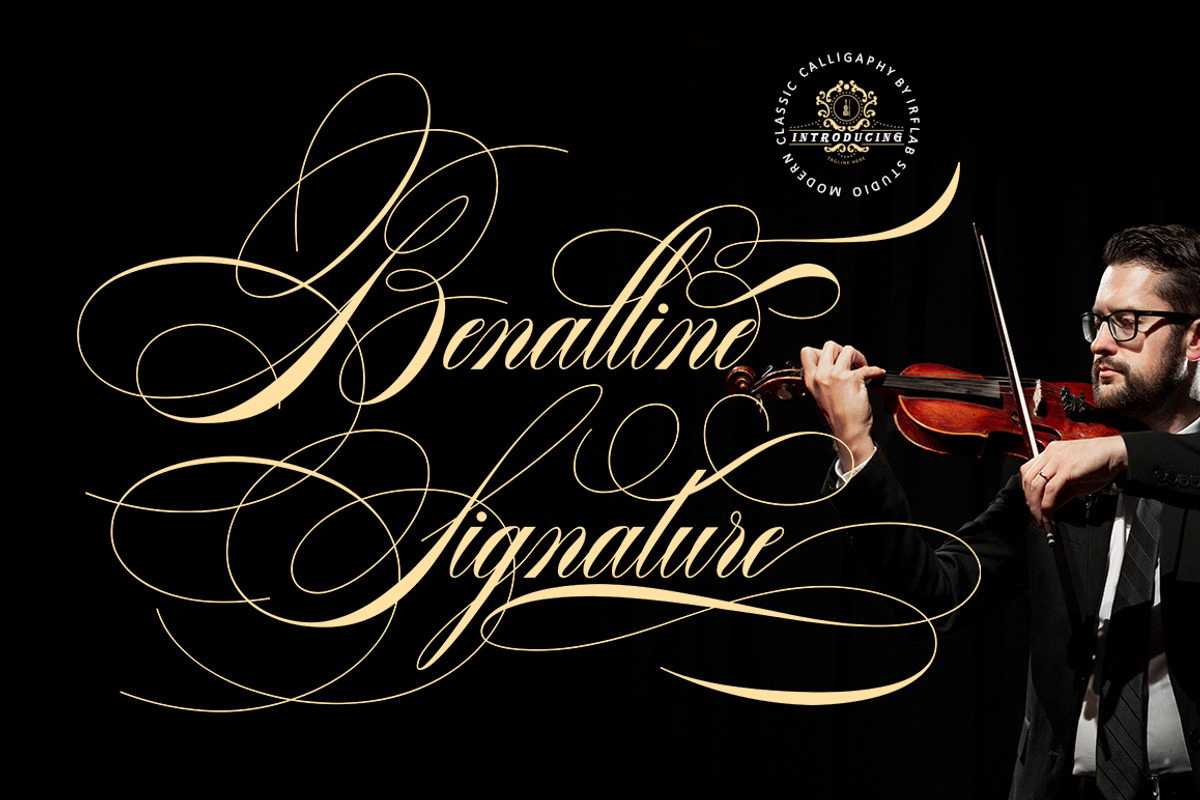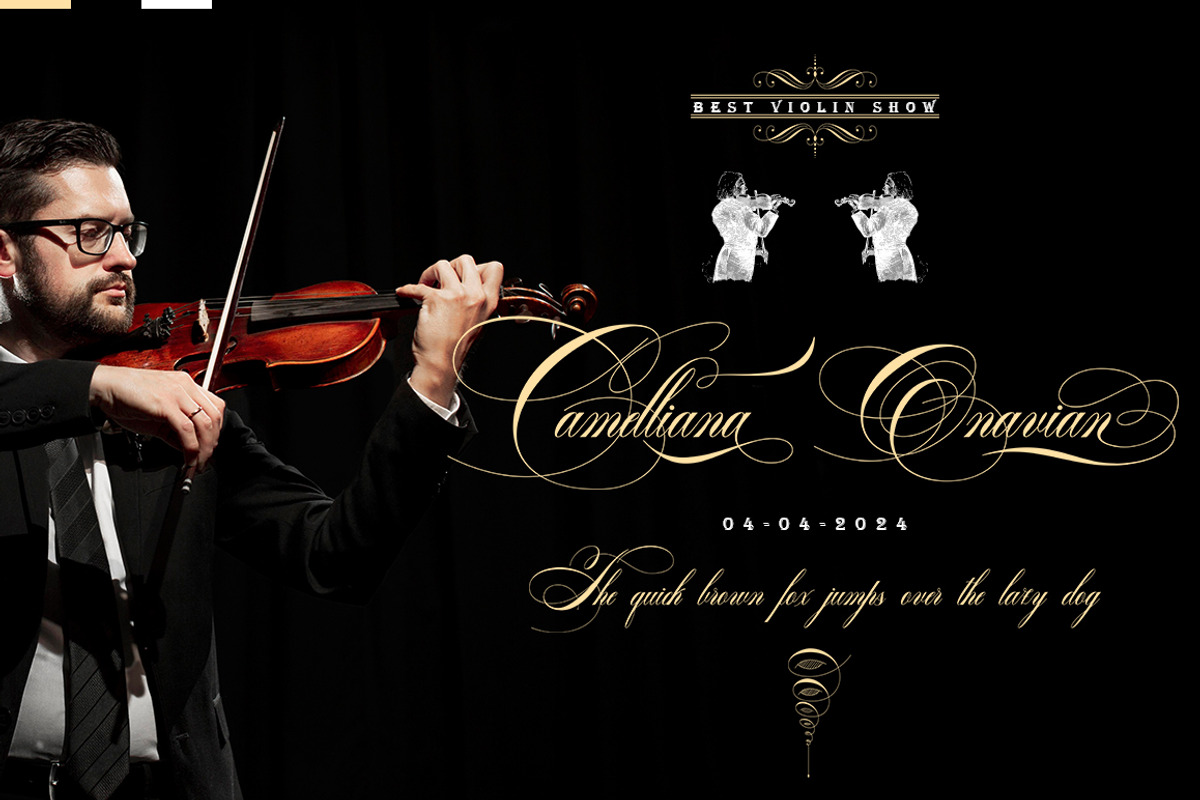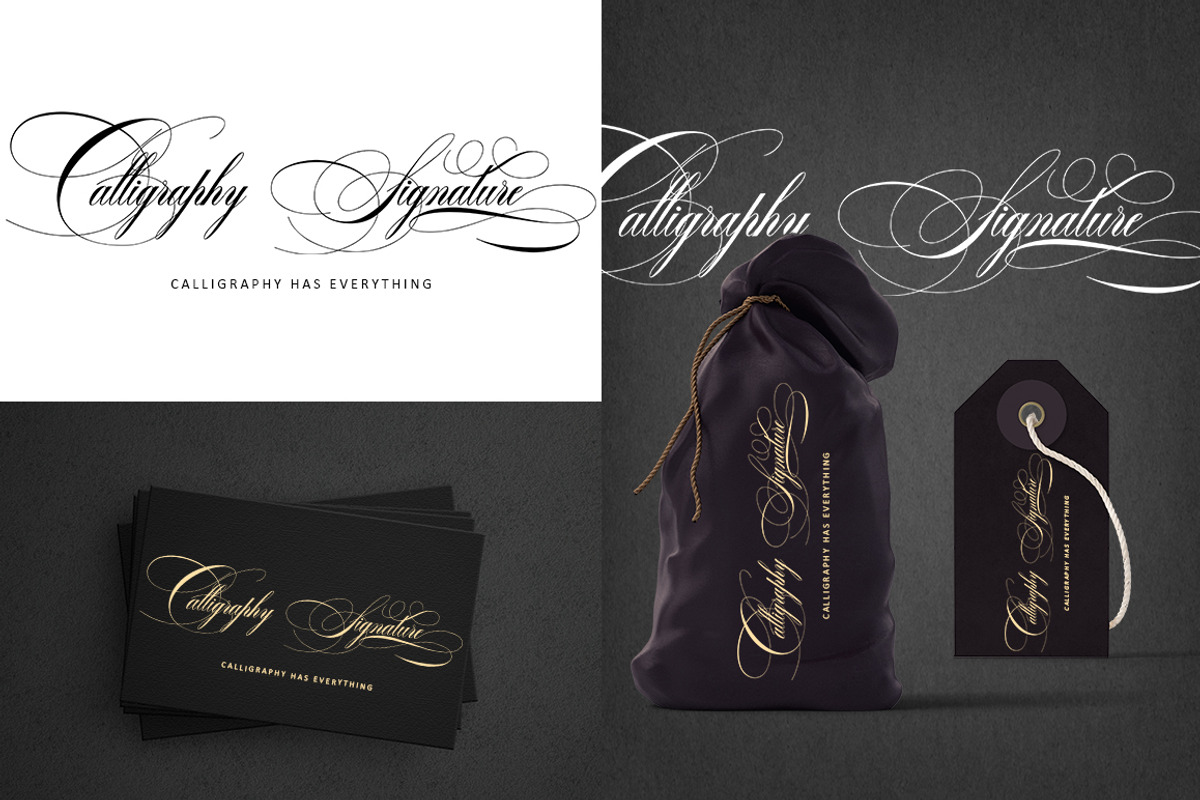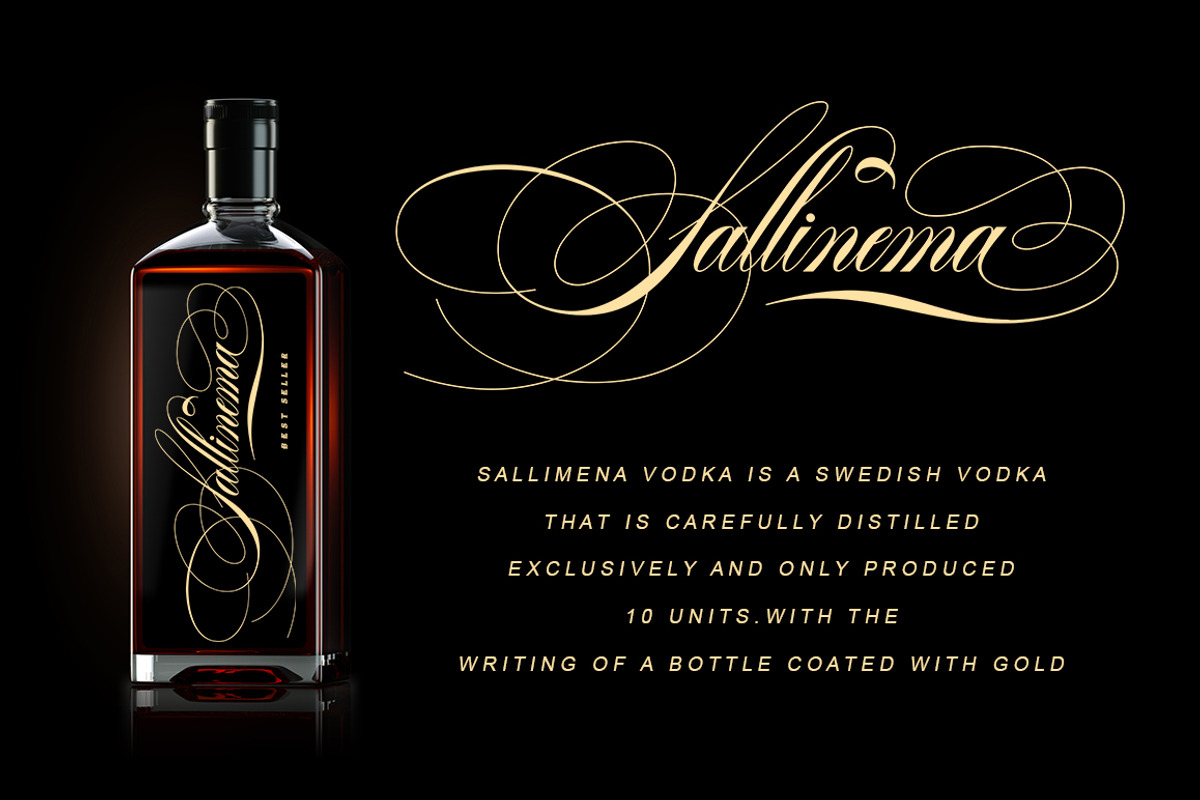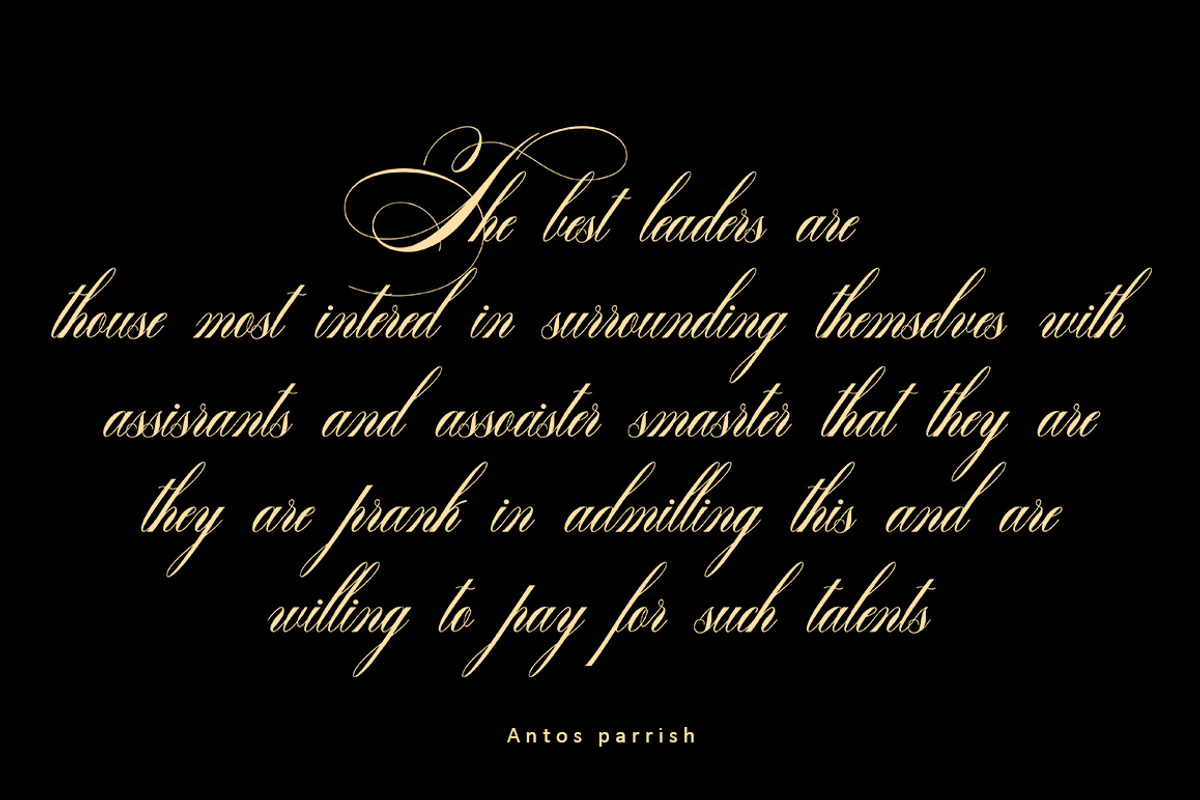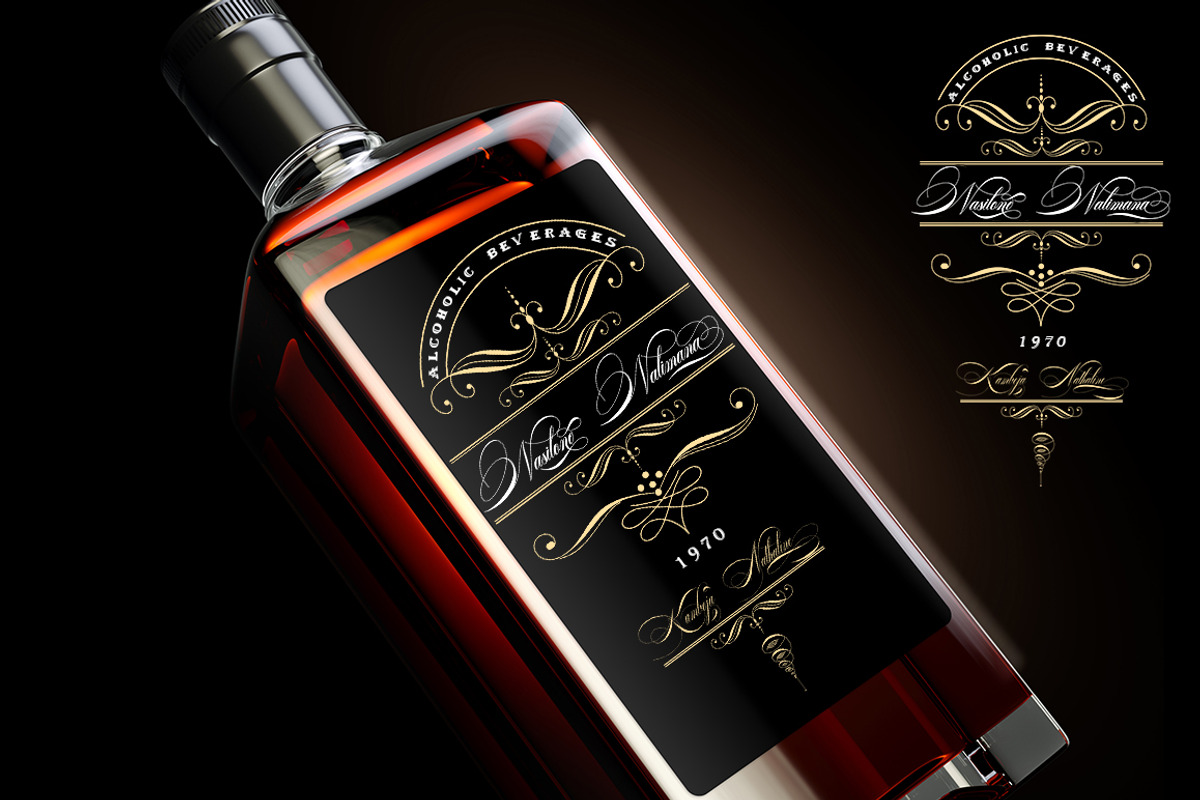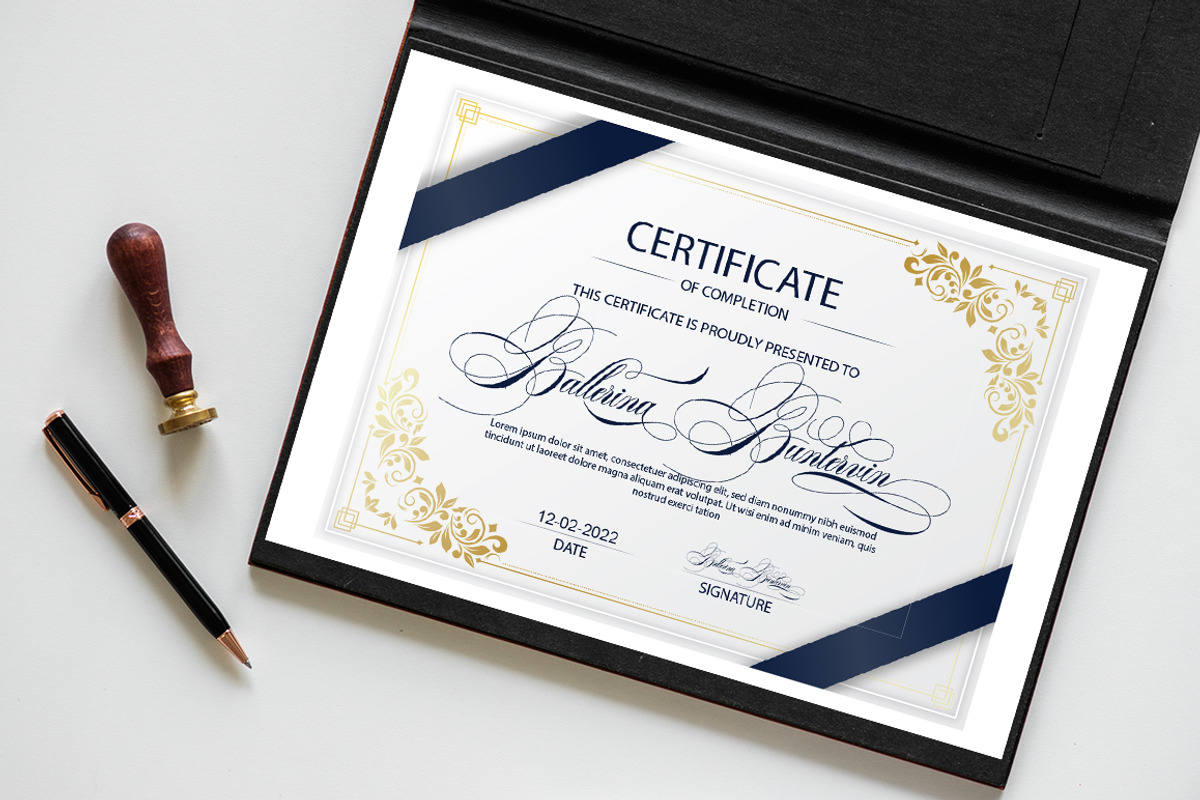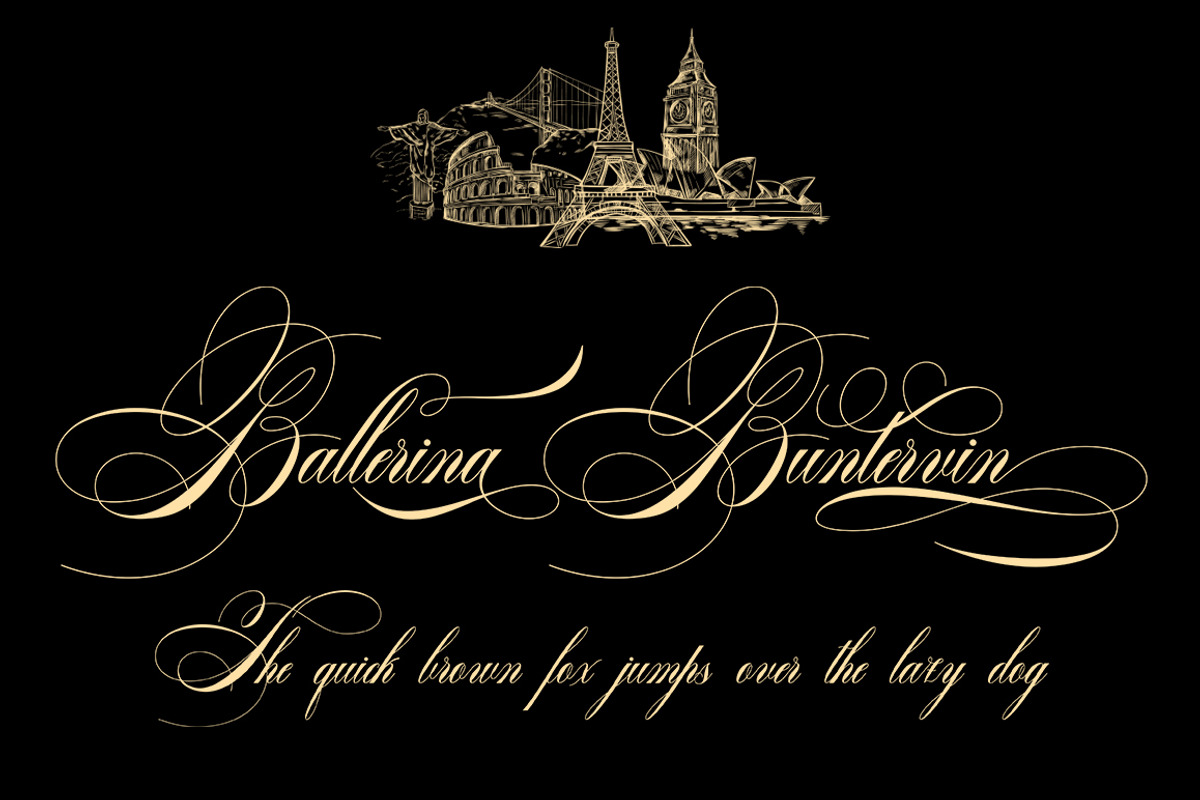
Benalline Signature
Benalline Signature is a calligraphy font with a classic style and an elegant touch, inspired by Italian women's handwriting and ancient manuscripts. Carefully designed to work together in harmony making it perfect for wedding favors, book covers, greeting cards, logos, branding, business cards and certificates, even for any design work that requires classic, formal or luxurious.